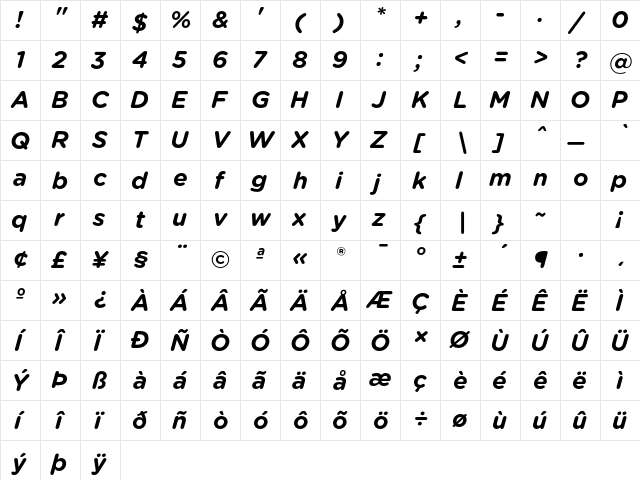
Gotham Rounded Bold Italic Font Preview
| Foundry | Hoefler & Frere-Jones |
| Designer | Tobias Frere-Jones |
Design Context for Gotham Rounded Typeface
Gotham Rounded uses gentle rounded endings to create a warm, inviting typographic personality — less corporate than geometric sans, more refined than playful display fonts. Its italic angle brings a sense of urgency and motion to the letterforms. The heavy weight commands attention and anchors typographic hierarchies.
A natural fit for tech startups, health and wellness brands, children's products, and friendly consumer apps.
Font Pairing: Pairs well with a rounded or humanist sans for body copy, maintaining the friendly tone without relying on Gotham Rounded to carry extended reading.
Pro Tip: Pair Gotham Rounded with a geometric sans for a balanced system — the rounded softness works as a warm counterpoint to harder-edged companions.